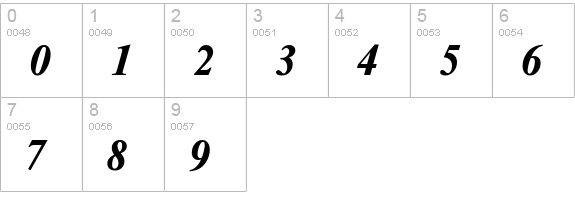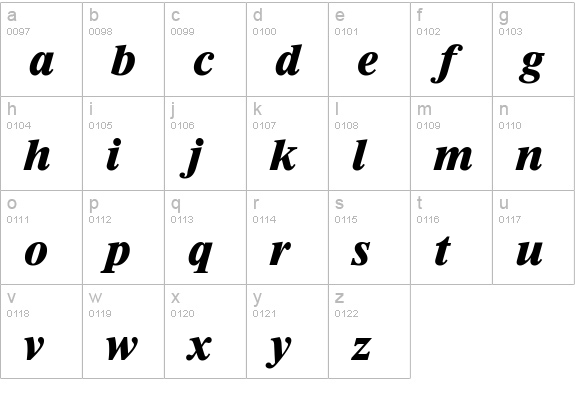
RiccioneSerial-Xbold-Italic Font Details
RiccioneSerial-Xbold-Italic is a distinctive, italic variant in the RiccioneSerial typeface family \xE2\x80\x94 well suited to design and typography projects.
RiccioneSerial-Xbold-Italic is a stunning and versatile font that exudes a sense of modernity and sophistication. Its bold and italicized design adds a touch of elegance to any project, making it perfect for headings, logos, and branding materials. The sleek lines and unique style of RiccioneSerial-Xbold-Italic make it a standout choice for designers looking to make a statement. And the best part? This exquisite font is available for free download at FontsMarket.com. Whether you're working on a professional project or a personal endeavor, RiccioneSerial-Xbold-Italic is sure to elevate your design and leave a lasting impression. Don't miss out on the opportunity to enhance your creative work with this exceptional font – download it for free today at FontsMarket.com!